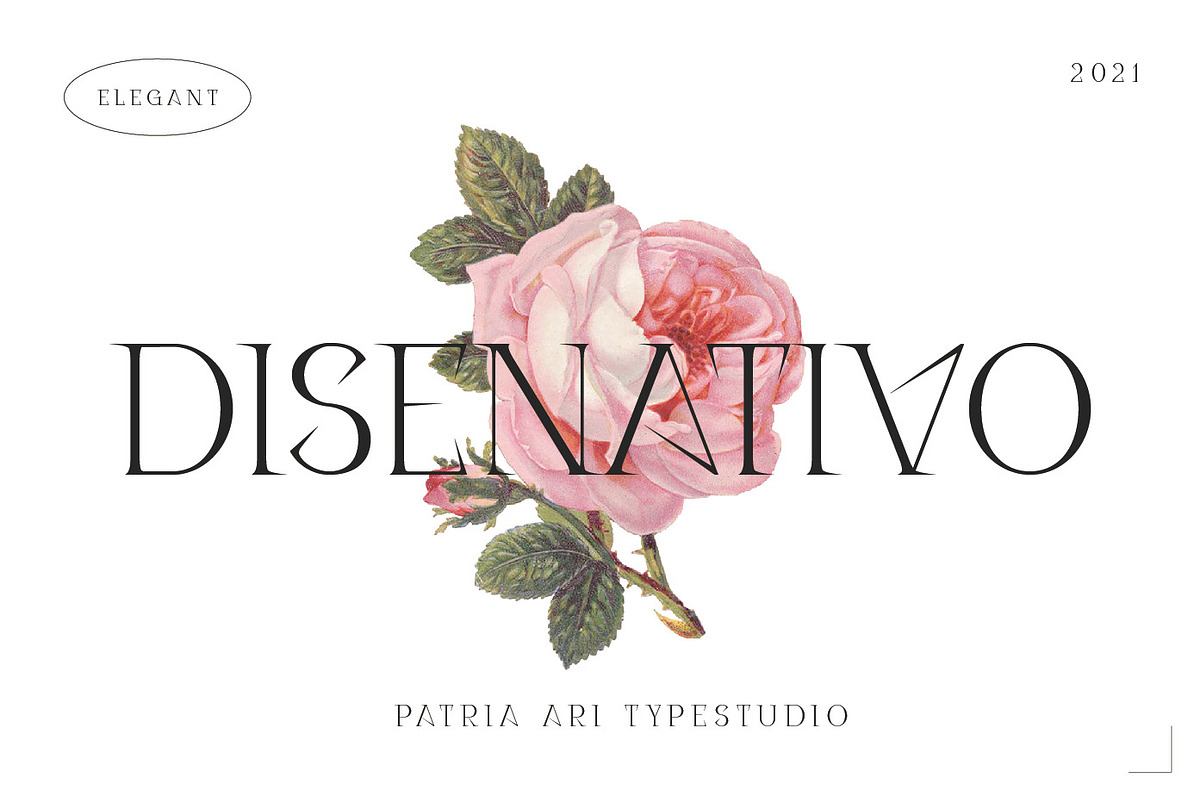
Disenativo - Sharp Display Fonts Free Download is a striking and bold typeface with sharp edges and geometric precision. Perfect for making a statement, this font is ideal for headlines, branding, logos, posters, and modern digital designs that need to capture attention with its distinctive style.
The clean, angular design of Disenativo gives your projects a contemporary and futuristic vibe, making it perfect for tech brands, event promotions, and creative industries. Its strong personality allows it to shine in both small and large-scale applications, delivering high impact across various media.